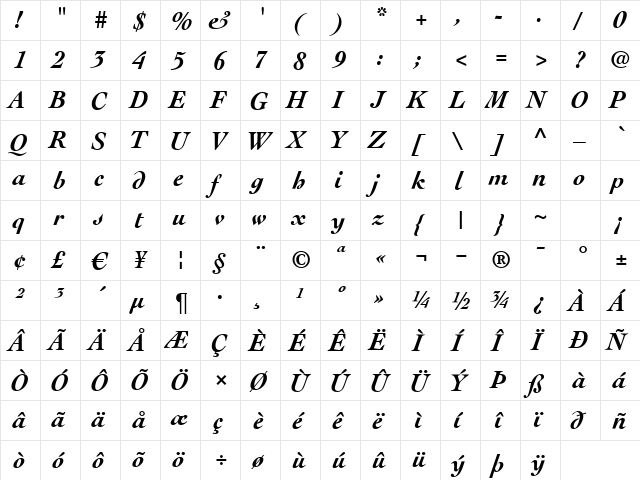
Cockney BoldItalic
Design Context for Cockney Typeface
Cockney takes a measured approach to typography — its balanced proportions and neutral character make it a reliable workhorse for both digital and print work. The slanted form adds forward momentum and visual energy. The heavy weight commands attention and anchors typographic hierarchies.
Pro Tip: Use Cockney for emphasis, pull quotes, and subheadings where its slanted energy can add rhythm to the layout.